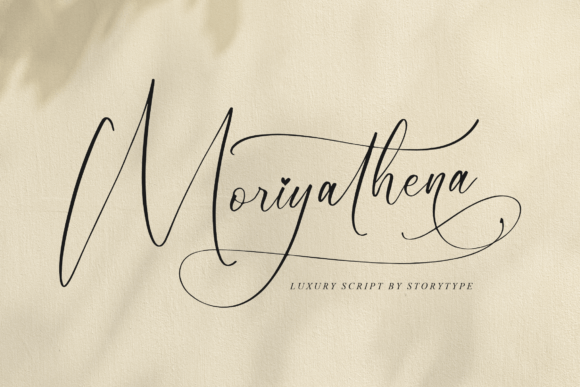
Unleash the allure of Moriyathena, a captivating script font that exudes luxury and modernity. Its unique style and distinctive look ignite a visual symphony, leaving an indelible impression on your creative endeavors.
Journey into a world of elegance and sophistication with Moriyathena, the perfect font for crafting an unforgettable logo that exudes grace and opulence. Its presence commands attention, elevating your brand identity to new heights of allure.
Adorn your book or movie title with Moriyathena, a font that captures the essence of timeless beauty. Its ability to convey emotion and depth transforms ordinary words into an extraordinary tale, captivating your audience from the very first glance.
Fashionistas, rejoice! Moriyathena is your ultimate font companion, adding a touch of elegance and luxury to your designs. From chic fashion labels to captivating magazine layouts, Moriyathena elevates your creations, ensuring they stand out from the crowd.
Embrace the art of lettering with Moriyathena, a font that dances across the canvas, transforming simple words into an expressive masterpiece. Its graceful strokes and sweeping swashes lend a touch of artistry, making every letter a work of art.
Share your wisdom and inspiration with Moriyathena, a font that adds a touch of elegance to your quotes. Its presence amplifies the impact of your words, leaving a lasting impression on your readers.
Moriyaathena's PUA encoding unlocks a treasure trove of glyphs and swashes, granting you the freedom to explore a world of creative possibilities. Dive into a boundless realm of customization, crafting designs that mirror your unique vision.